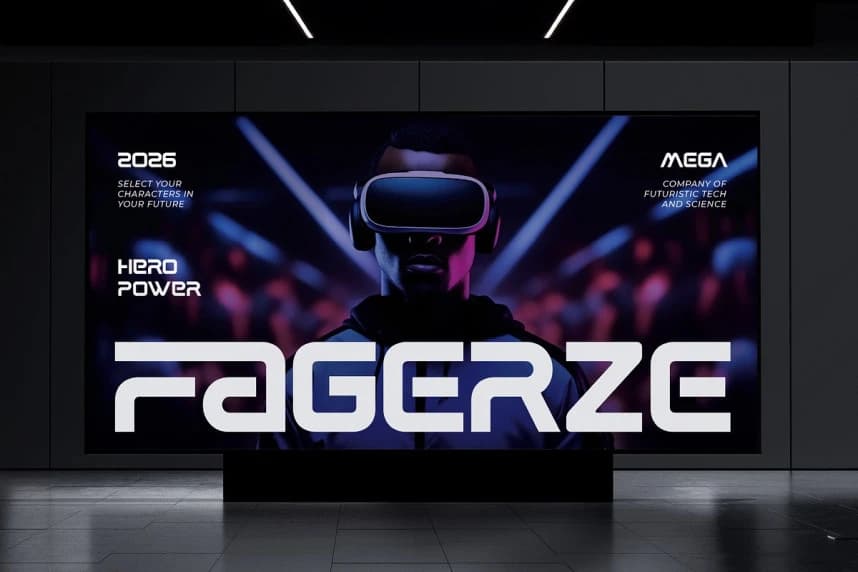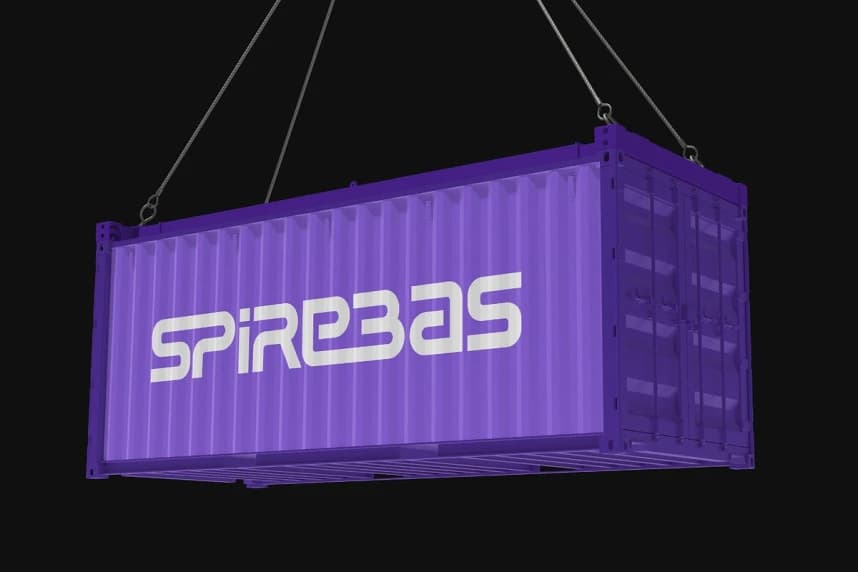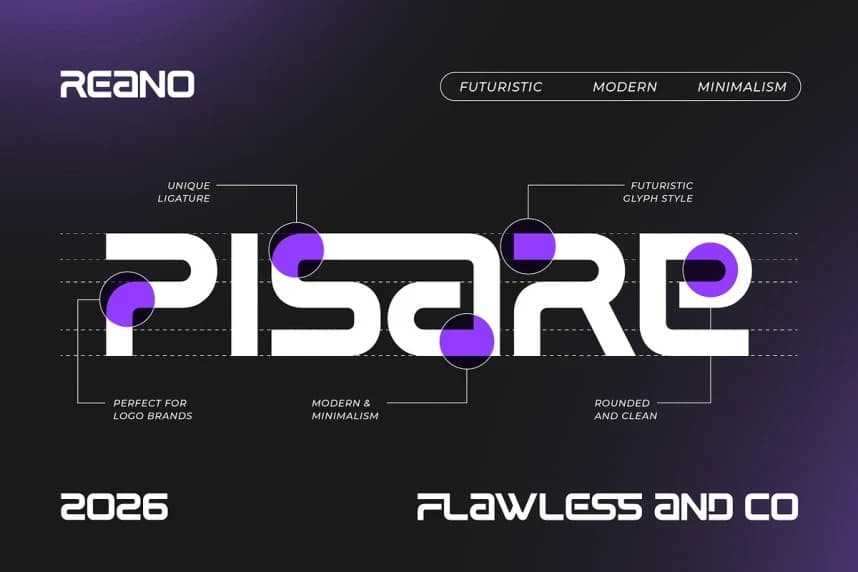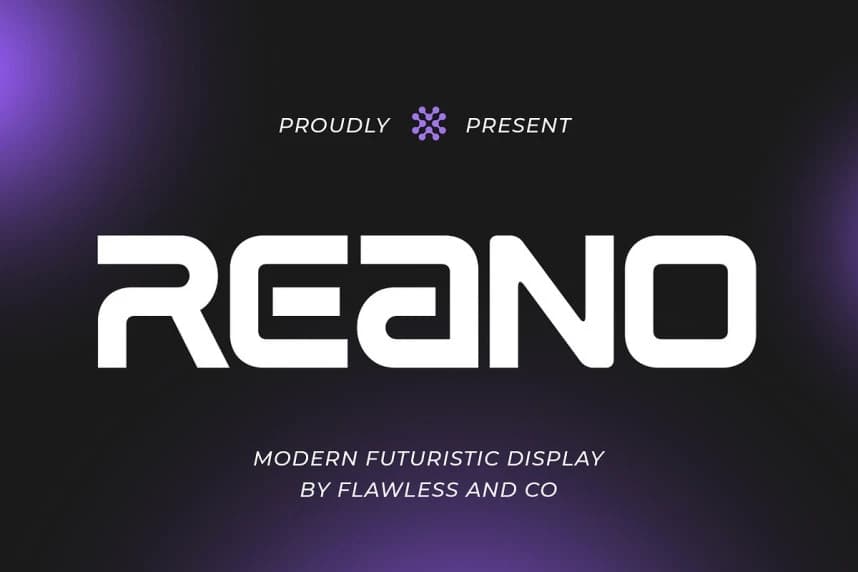
Reano Font
Reano Font is a striking modern futuristic display typeface crafted to deliver a clean, high-tech, and forward-looking visual style. Its precise geometric shapes and sharp edges create a strong digital aesthetic that instantly captures attention.